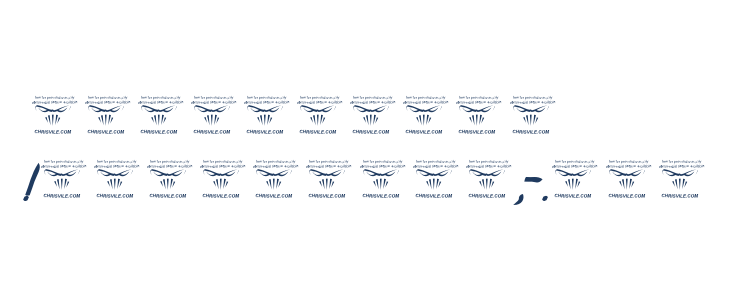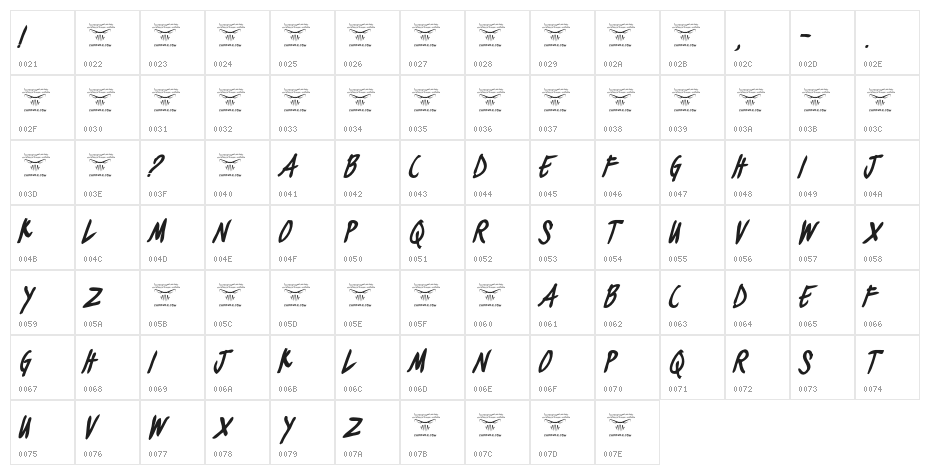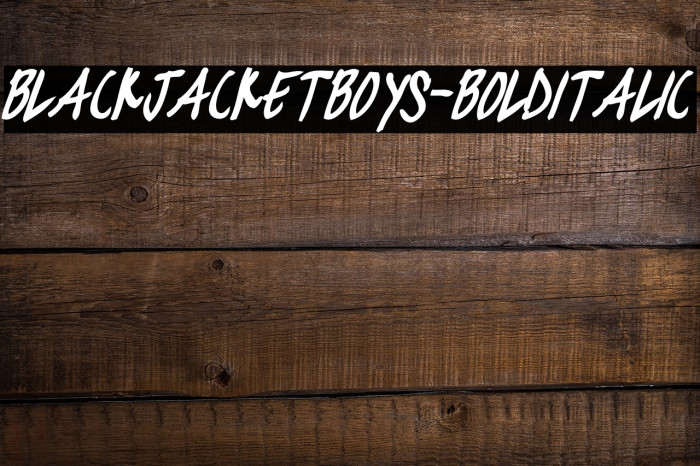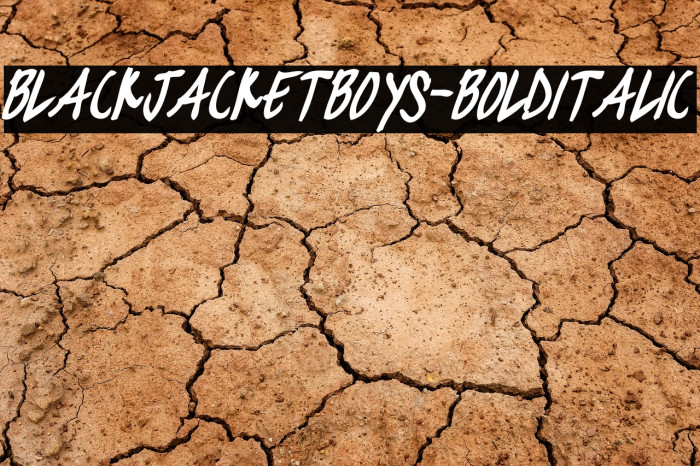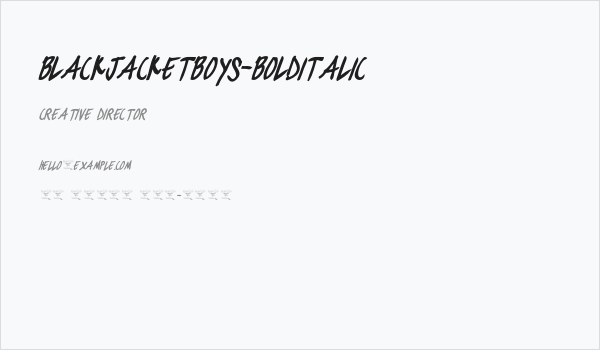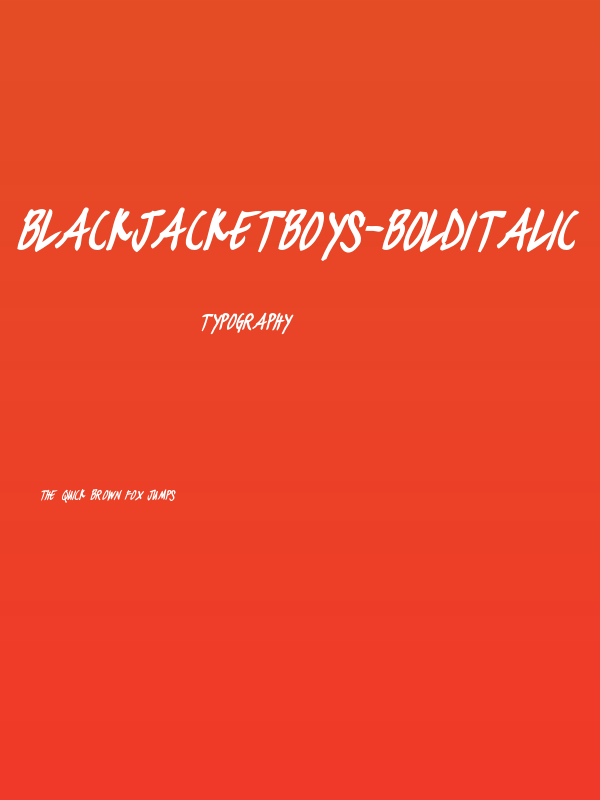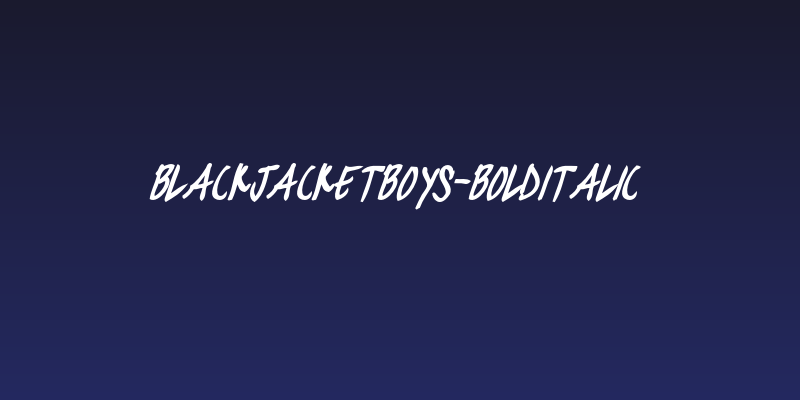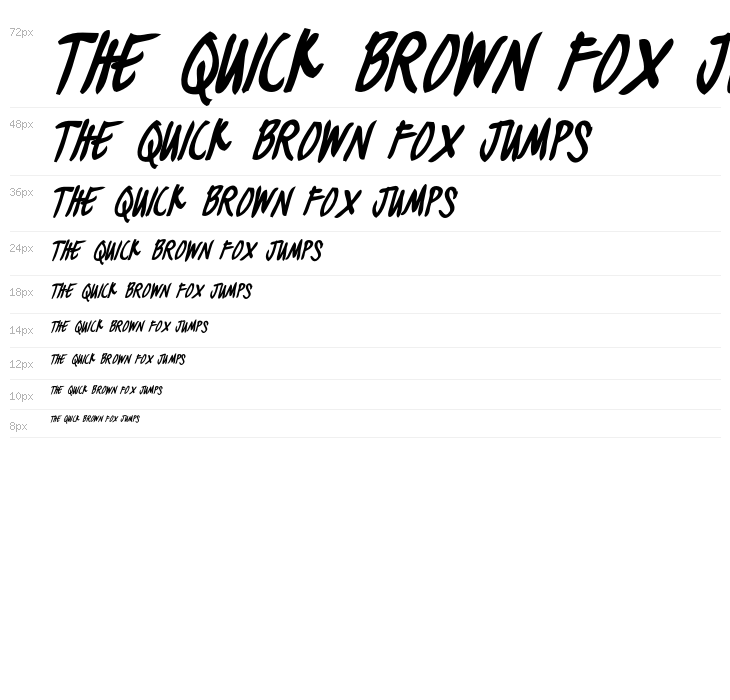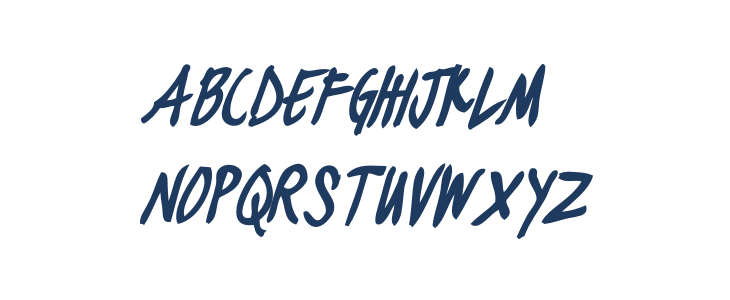
blackjacketboys-BoldItalic Font
blackjacketboys-BoldItalic Description
This font features a bold and dynamic script style with a strong italic slant, giving it a sense of motion and energy. The characters are crafted with thick strokes and sharp edges, creating a striking and impactful appearance. The uppercase letters are particularly prominent, with a slightly condensed form that enhances their boldness. The lowercase letters maintain the same energetic style, ensuring consistency throughout the text. This font's unique character is further emphasized by its high contrast in stroke thickness, which adds to its visual appeal.
| Proposed Projects | Ideal for branding, logos, posters, and any design project that requires a bold and energetic script style. |